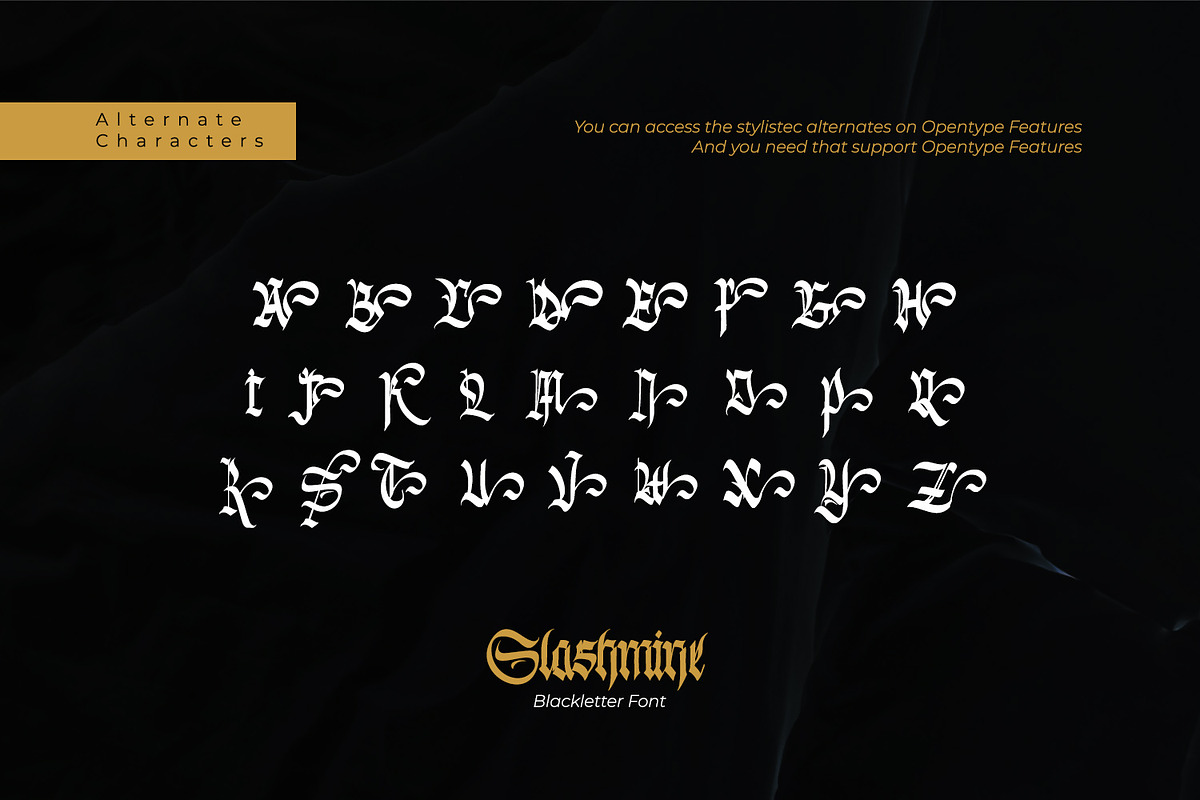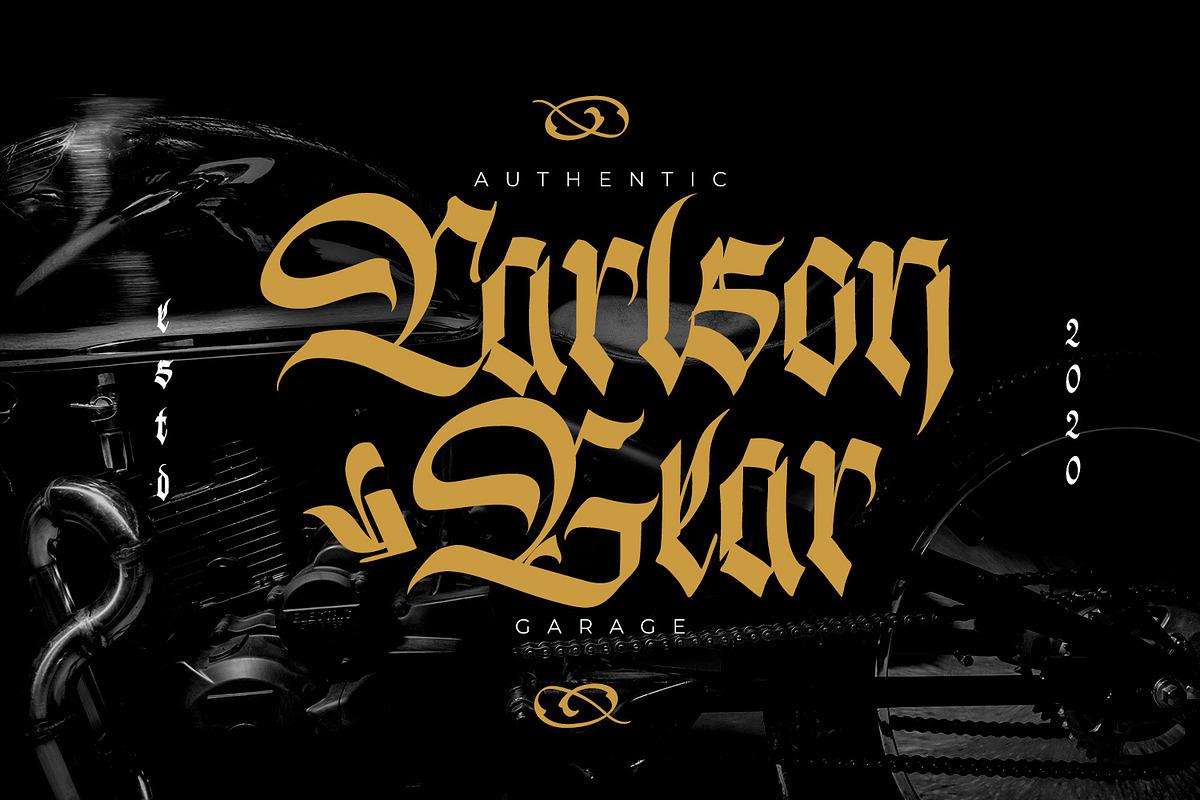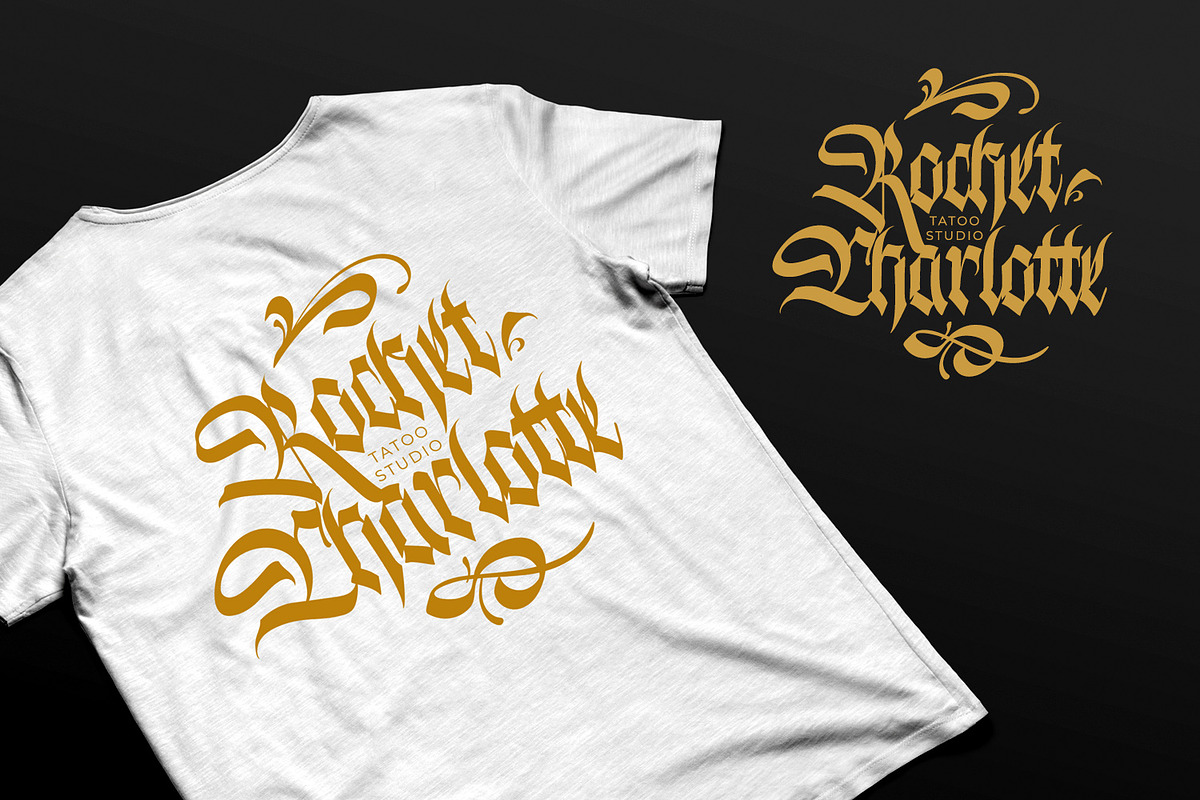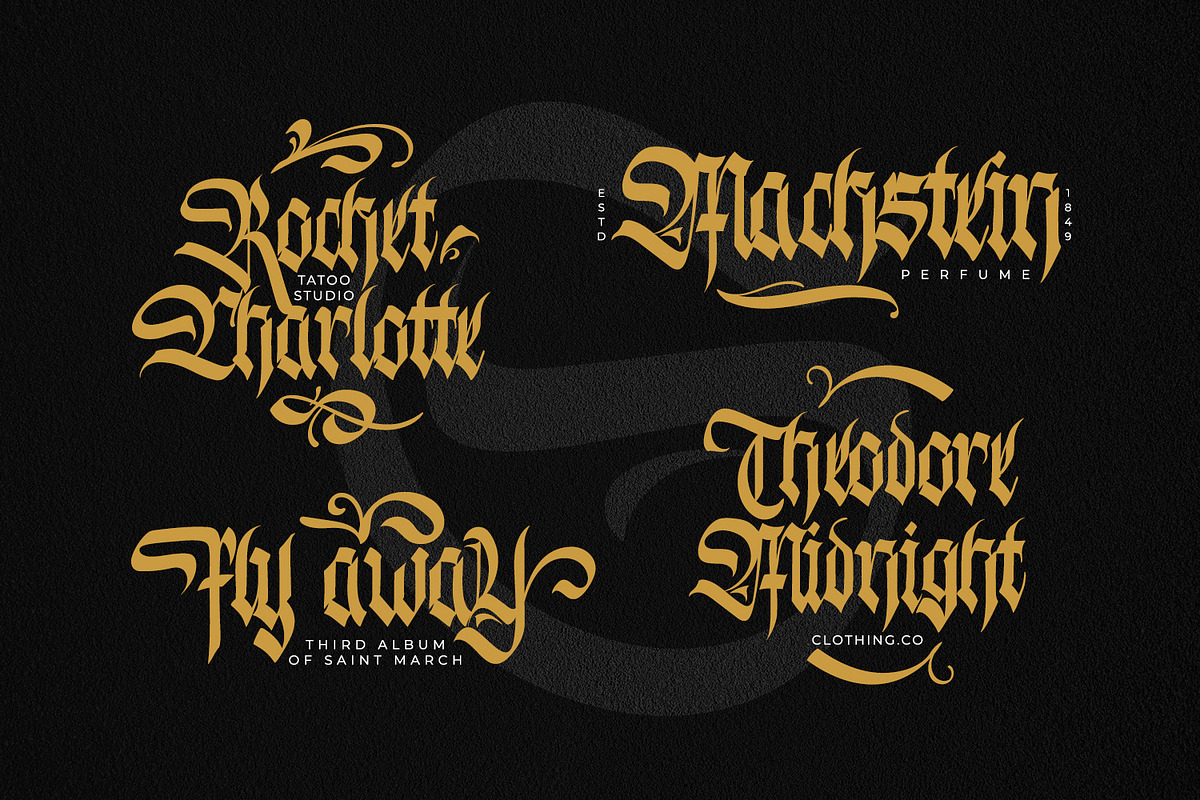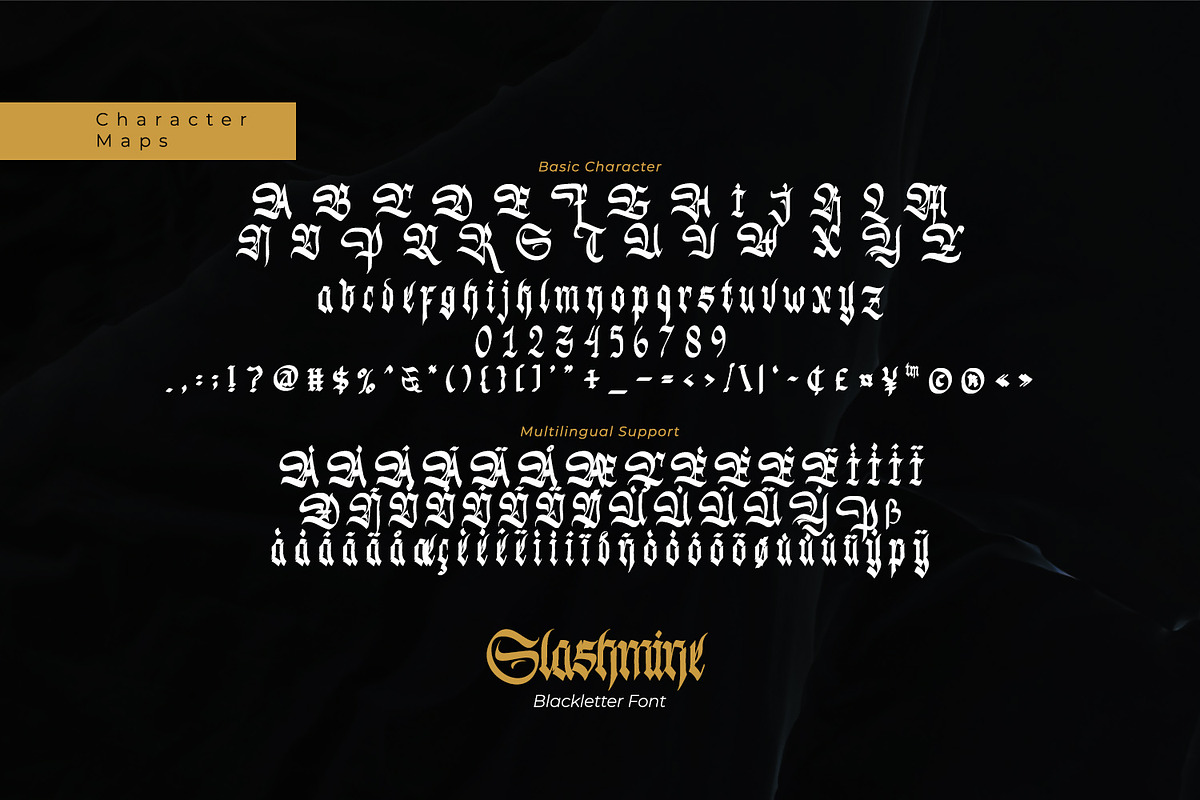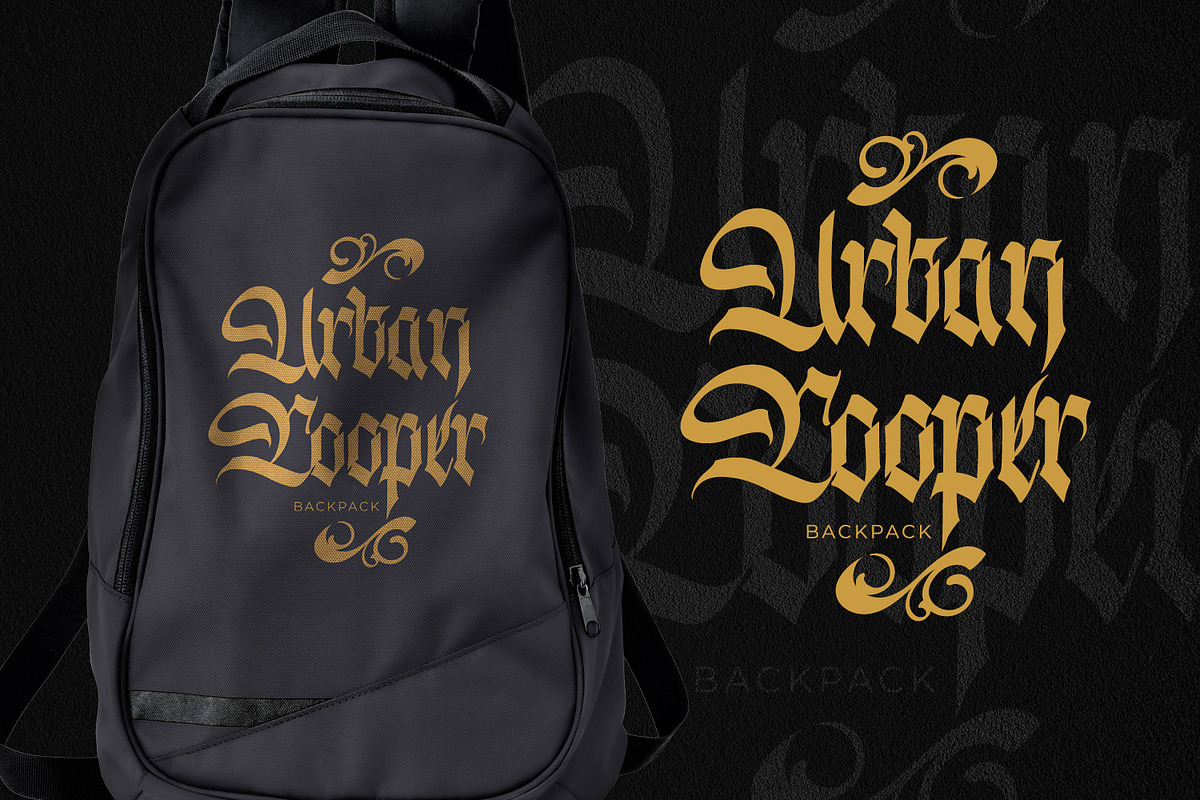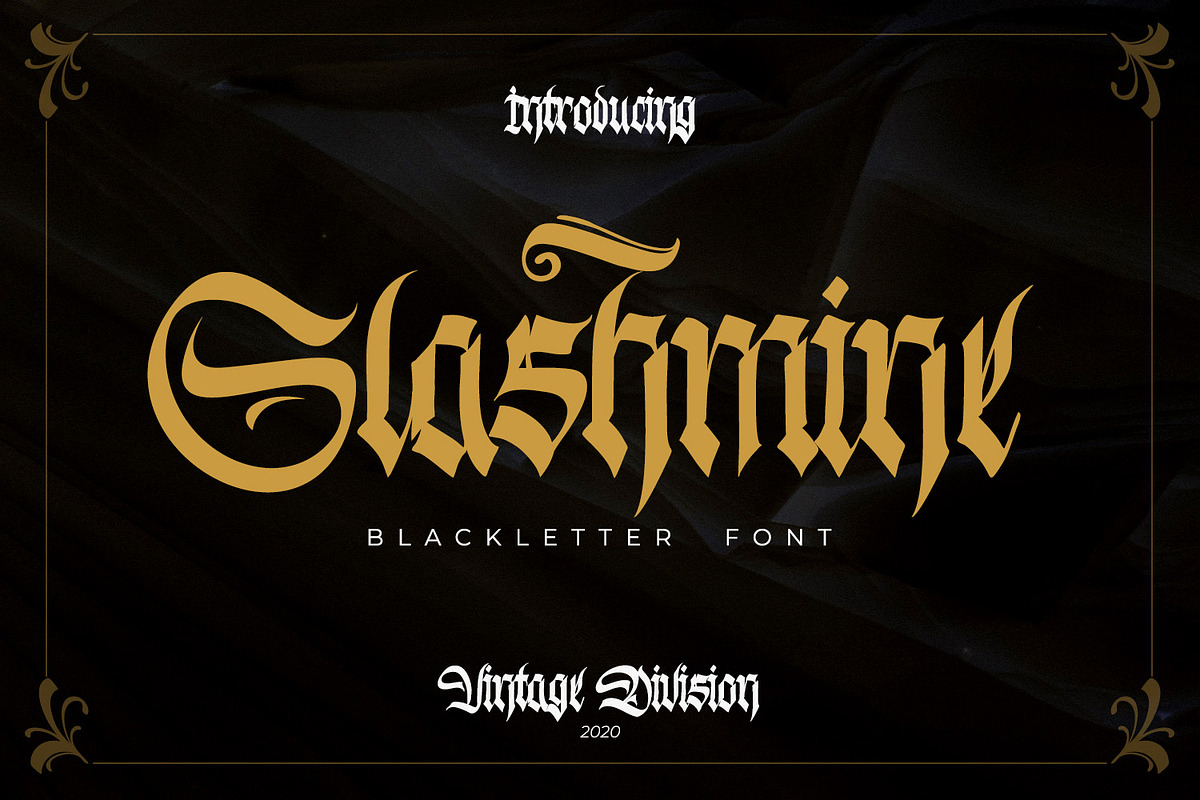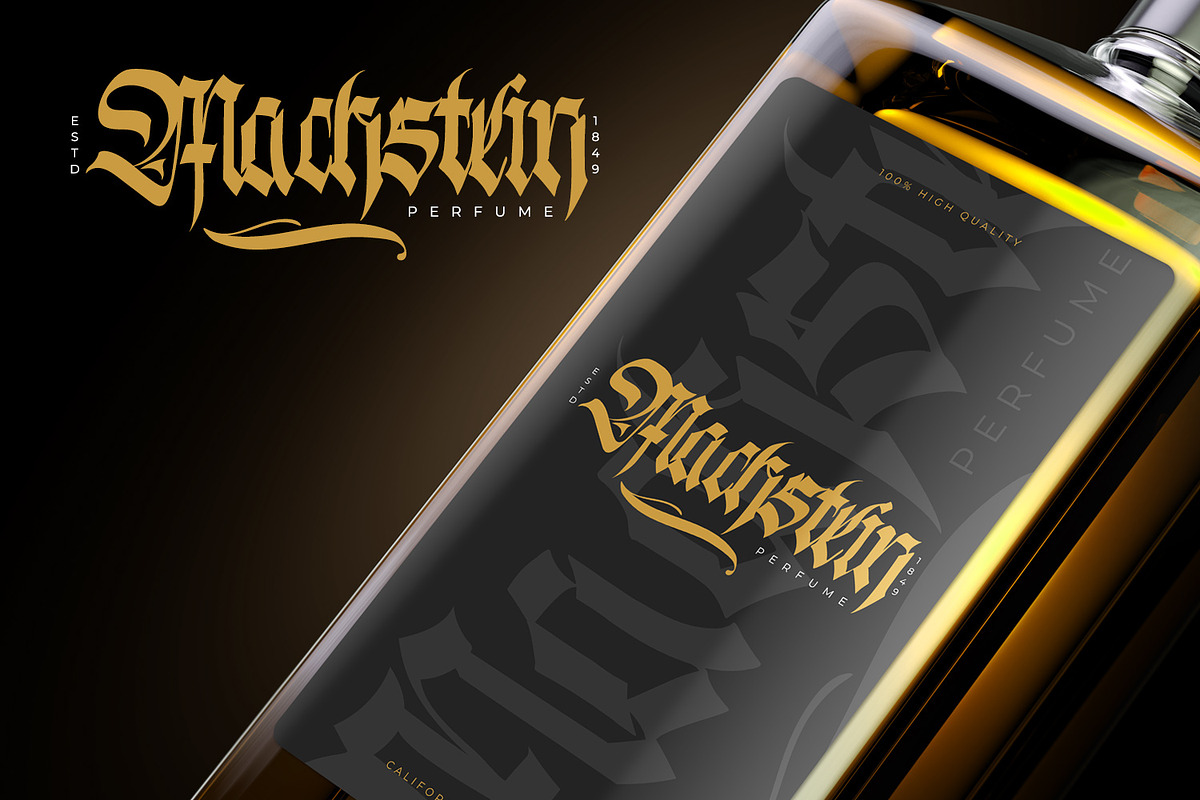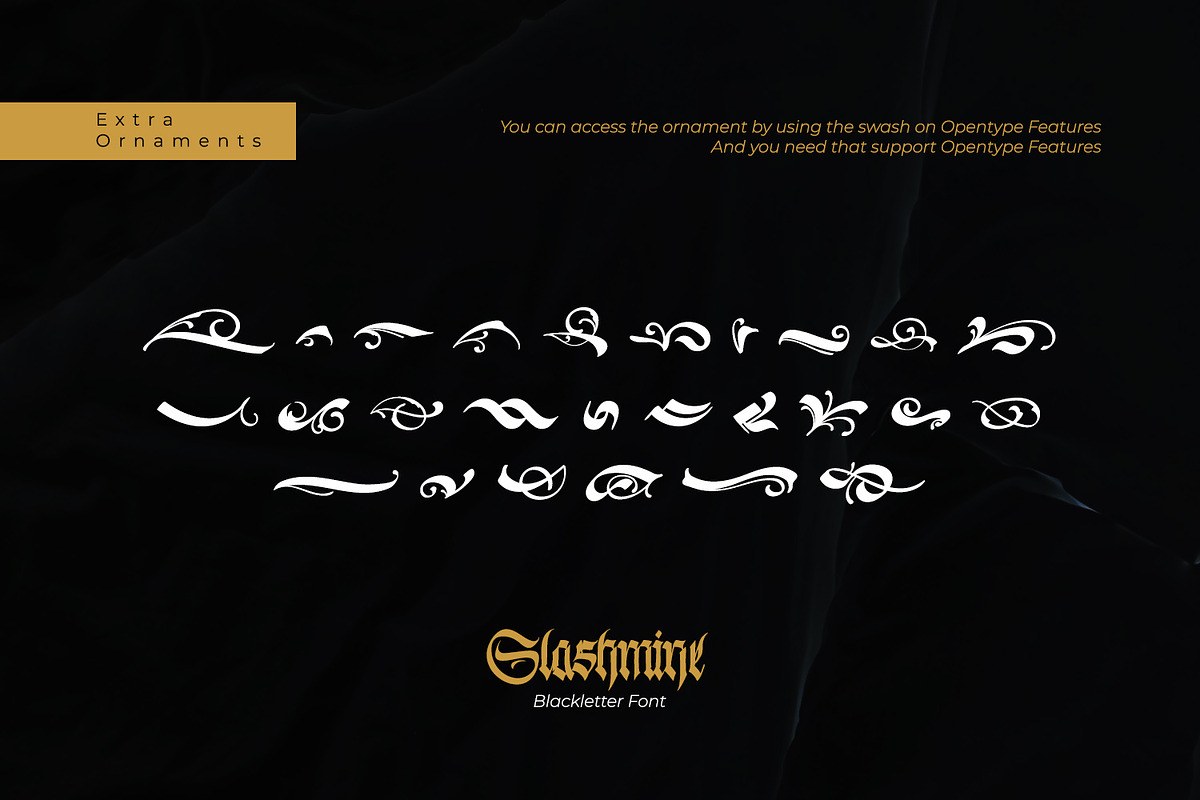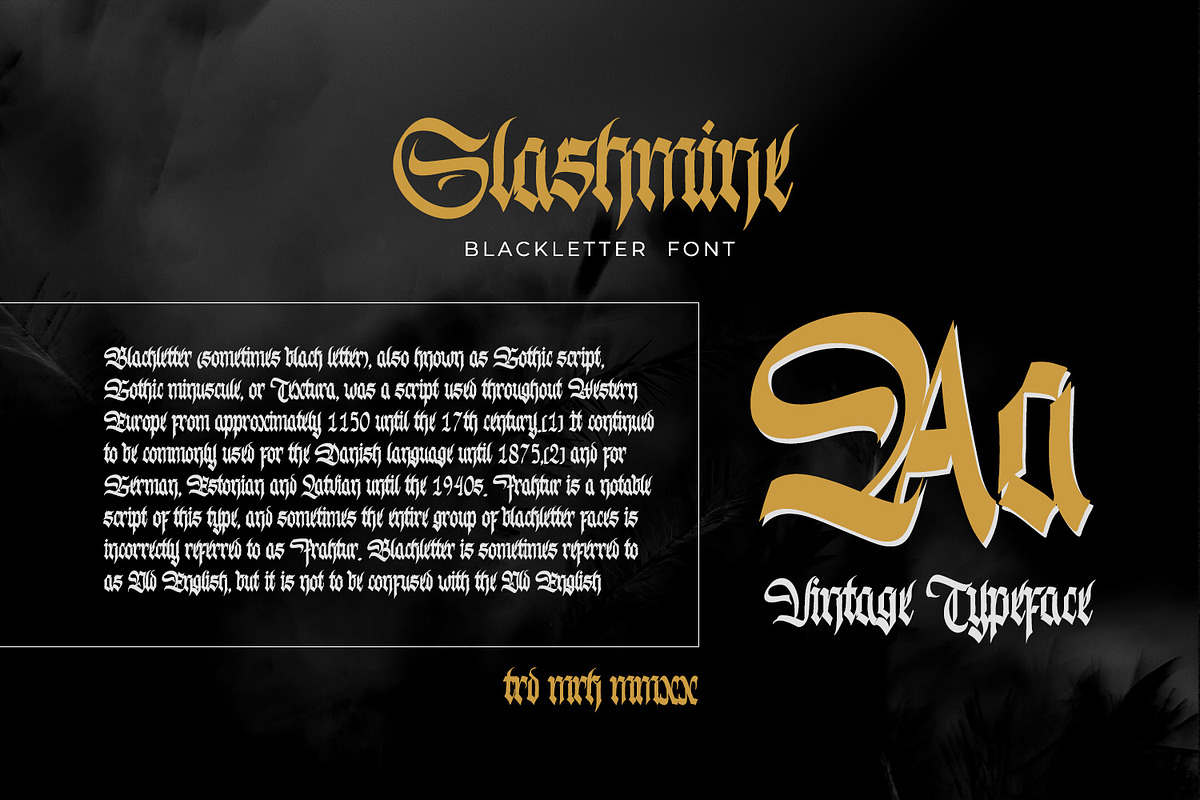
Slashmine
Slashmine is authentic and modern blackletter font. The font is suitable for any branding project like logo, t-shirt printing and many more. Outstanding in a wide range of contexts.